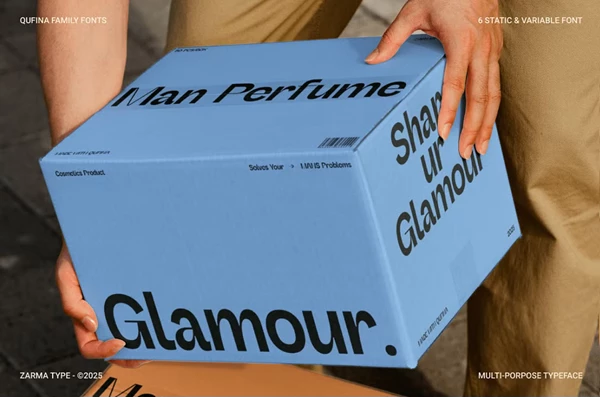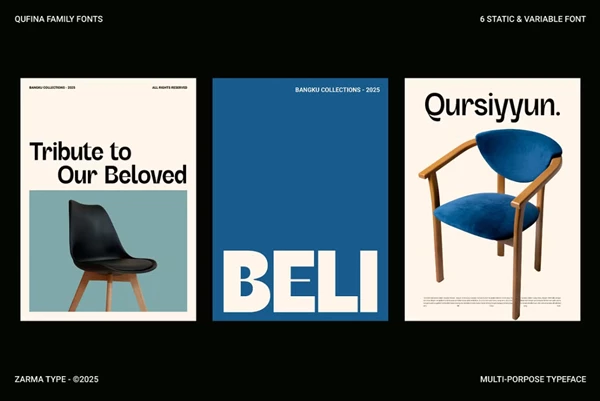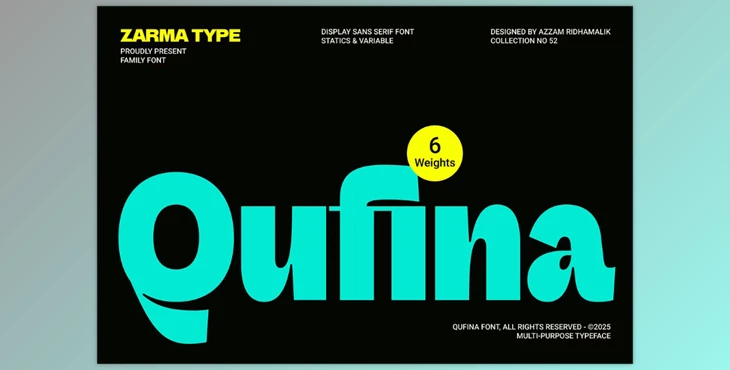
Qufina - Modern Sans Serif Font:
Qufina’s family of contemporary sans serif fonts contains a bold clarity with a functional elegance fusion. Thus, rendering it suitable for both print and digital media. Qufina was crafted with six individual styles, alongside a dynamic variable version, granting it flexibility for use in everything from editorial layouts to striking signage. The lively but harmonized letterforms grant a youthful and visually fresh aesthetic while retaining a polished facade. Clean lines paired with sharp and modern edges align with current typographic standards, which heavily lean towards character-steeped bold minimalism.
Excellent for use in creating modern packaging or branding for tech startups, alongside designing engaging web banners, Qufina is also ideal for projects seeking a fresh new visual approach. It readily ensures versatility alongside flexibility, earning its keep by assisting designers wishing to enrich their creative rubrics. Whichever composition, be it bold or minimalist with vivid or colorful layers, Qufina does not disappoint and consistently works to elevate and enhance the design.
Some great features of Qufina - Modern Sans Serif Font:
- 6 weights: Light, Regular, Medium, Semi-Bold, Bold, Black
- Variable font version
- OpenType features
- Multilingual support
- Extended Latin
- PUA-encoded characters